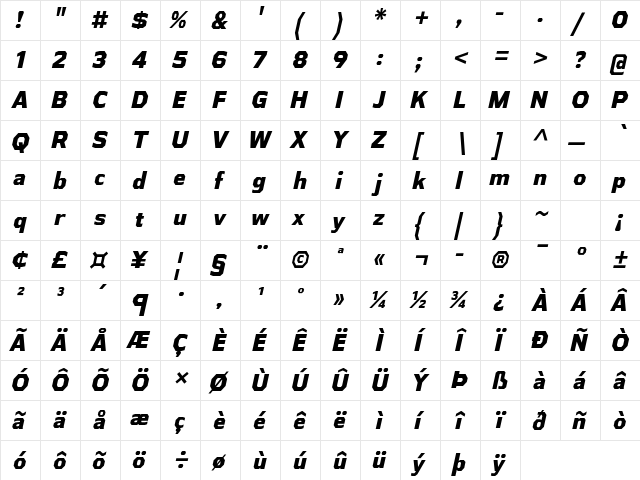
Athabasca ExtraBold Italic
Design Context for Athabasca Typeface
Athabasca offers clean, dependable letterforms without strong stylistic allegiance, making it a practical choice for designers who need flexibility. The slanted form adds forward momentum and visual energy. The heavy weight commands attention and anchors typographic hierarchies.
Pro Tip: Use Athabasca for emphasis, pull quotes, and subheadings where its slanted energy can add rhythm to the layout.